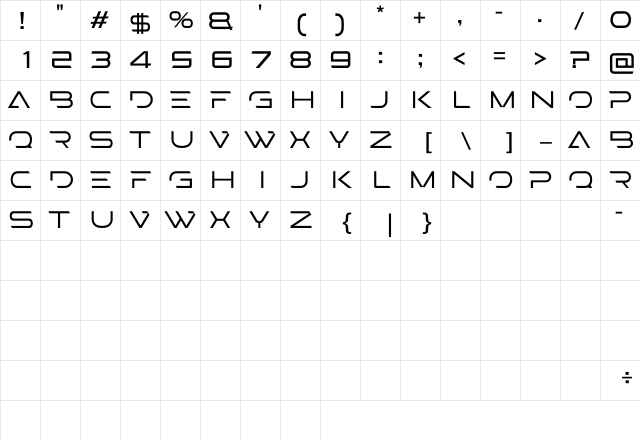
STEPS LIGHT Regular Font Preview
STEPS LIGHT Regular
Design Context for STEPS LIGHT Typeface
STEPS LIGHT is a composed and adaptable typeface that performs quietly and consistently across a wide range of design contexts. The delicate stroke weight brings airiness and refinement to layouts.